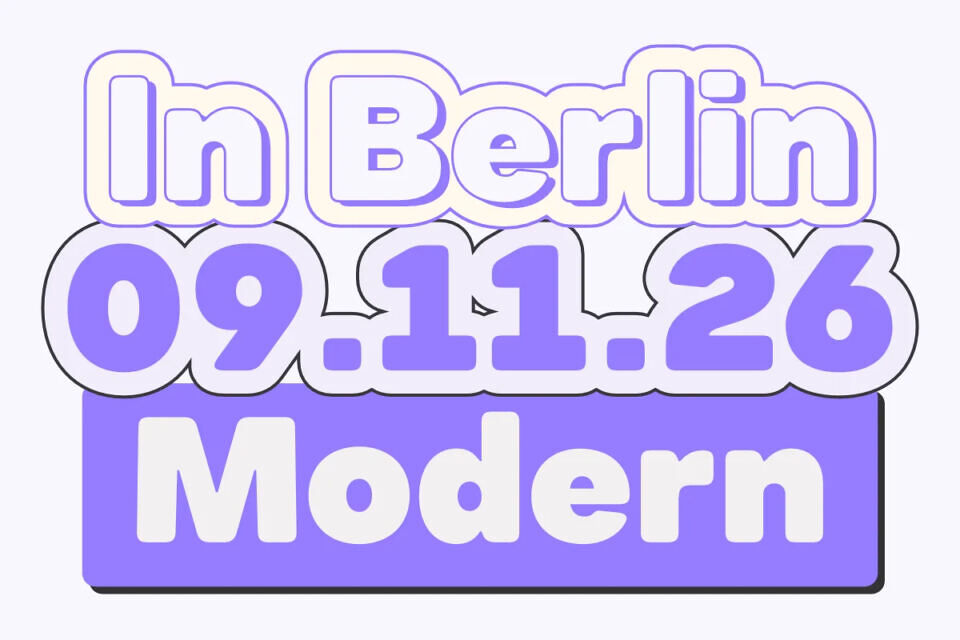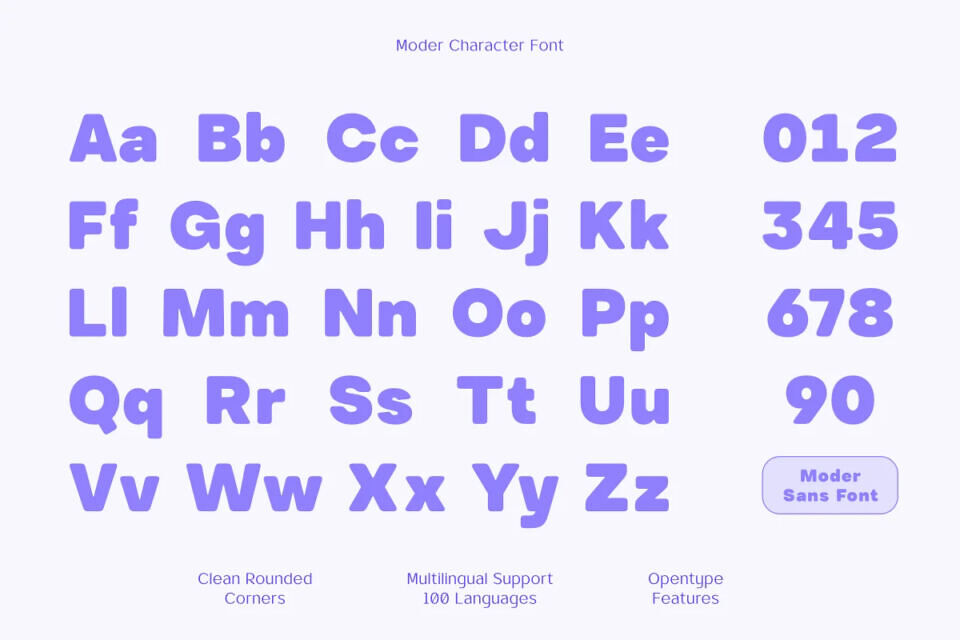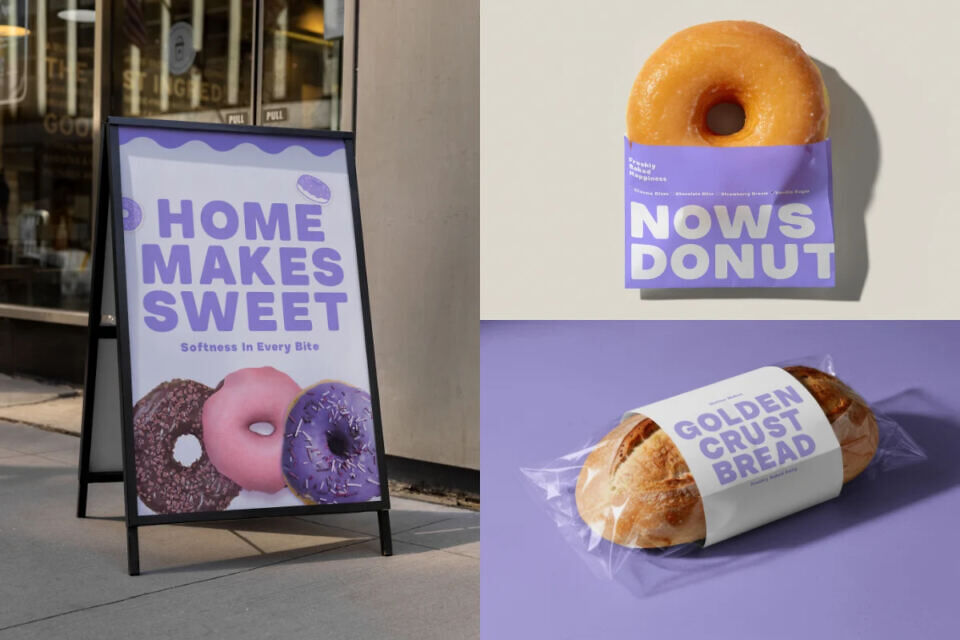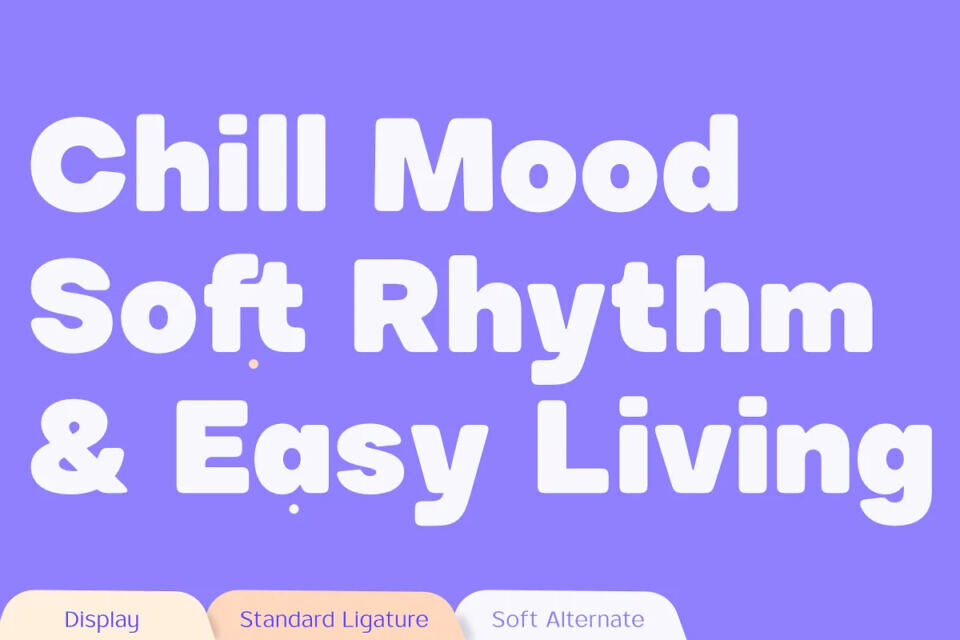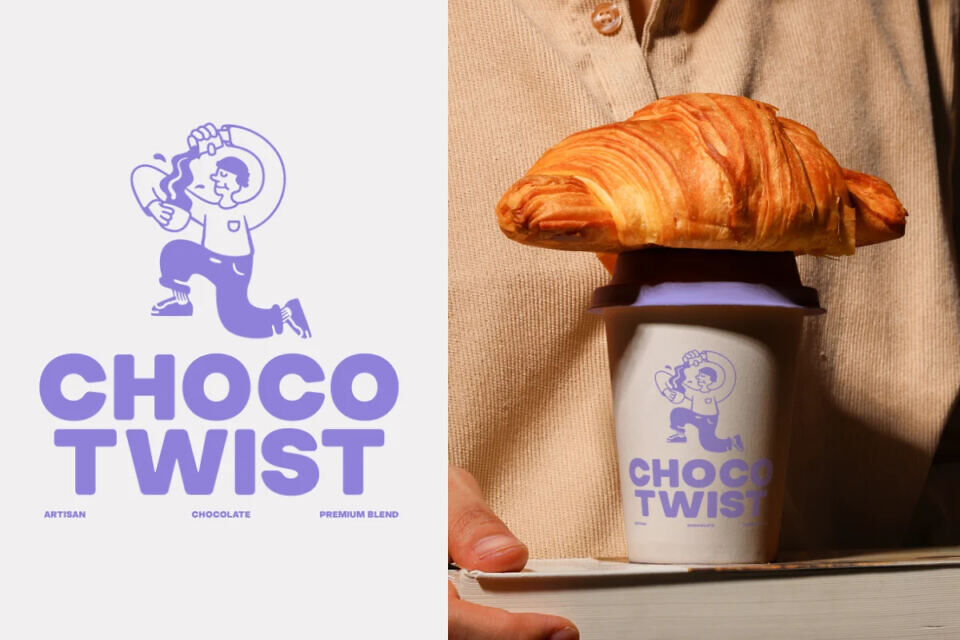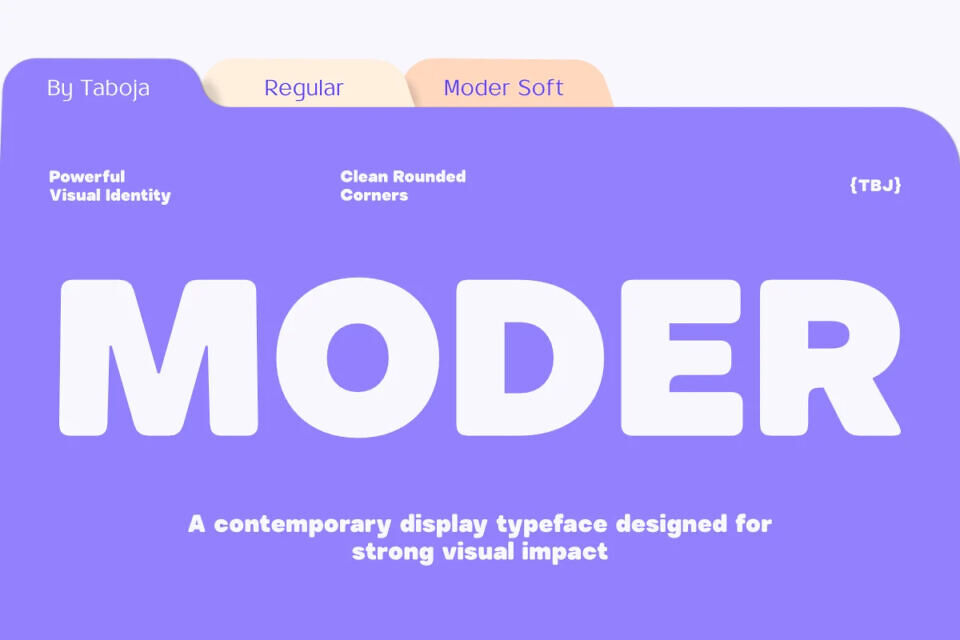
TBJ Moder Font
Moder is a contemporary rounded display typeface designed to deliver a bold and modern visual identity. Created with smooth curves and clean rounded corners, this typeface offers a friendly yet powerful character that stands out in large headlines and modern branding.
The letterforms are carefully crafted to balance softness and strength, making MODER ideal for designs that require clarity, personality, and strong visual presence. Whether used for branding, posters, packaging, social media graphics, or editorial layouts, MODER brings a confident and contemporary tone to your typography.